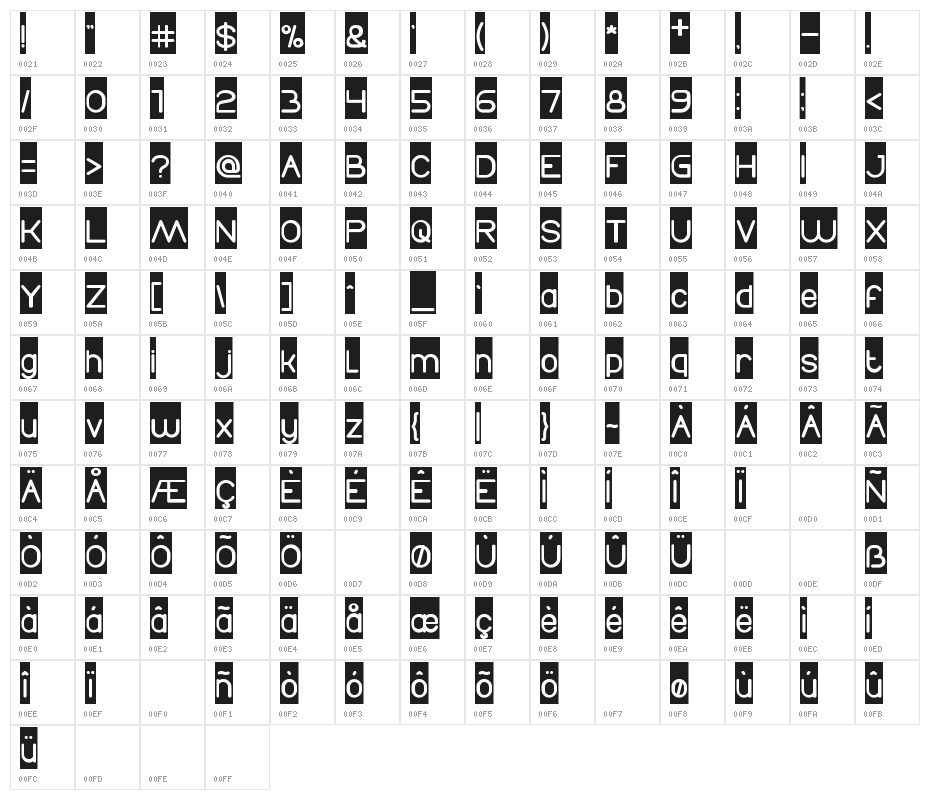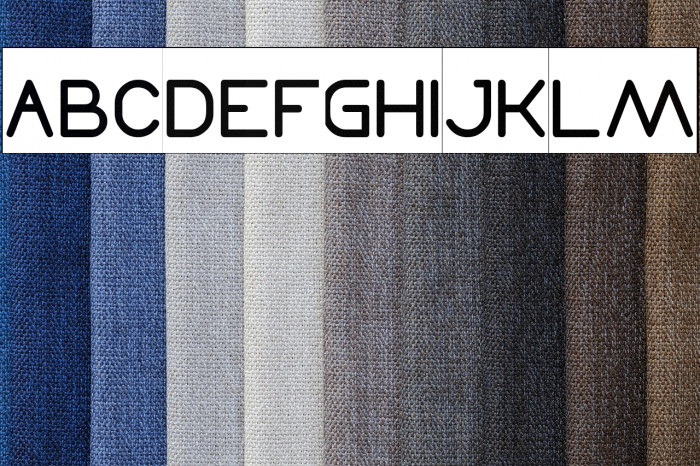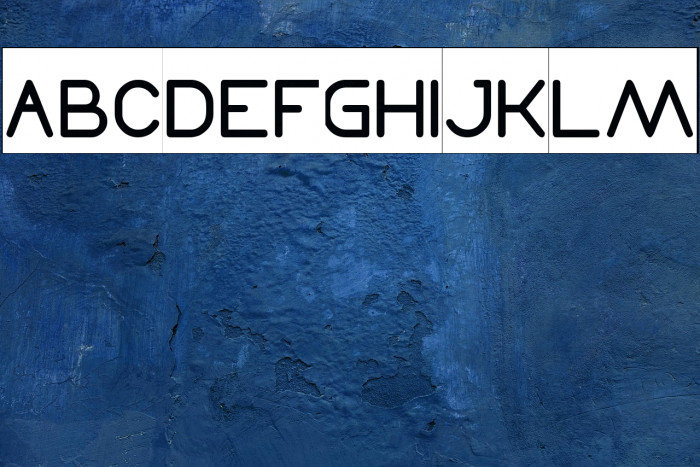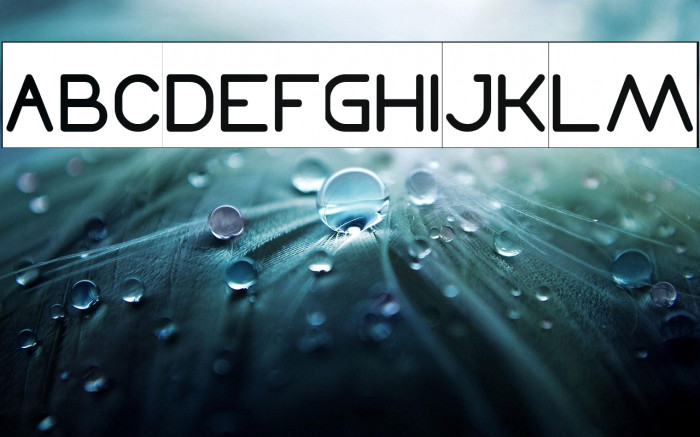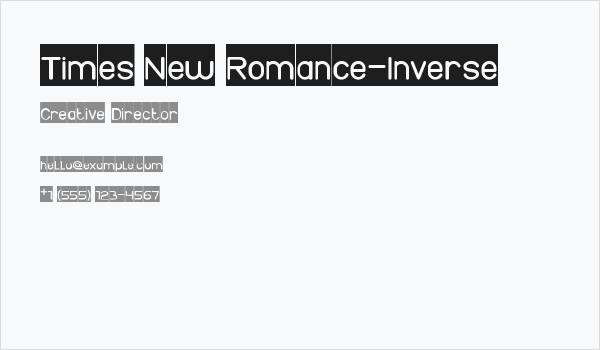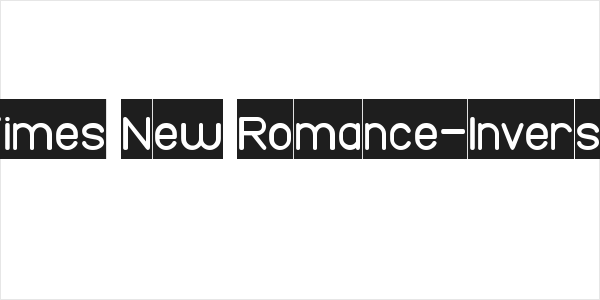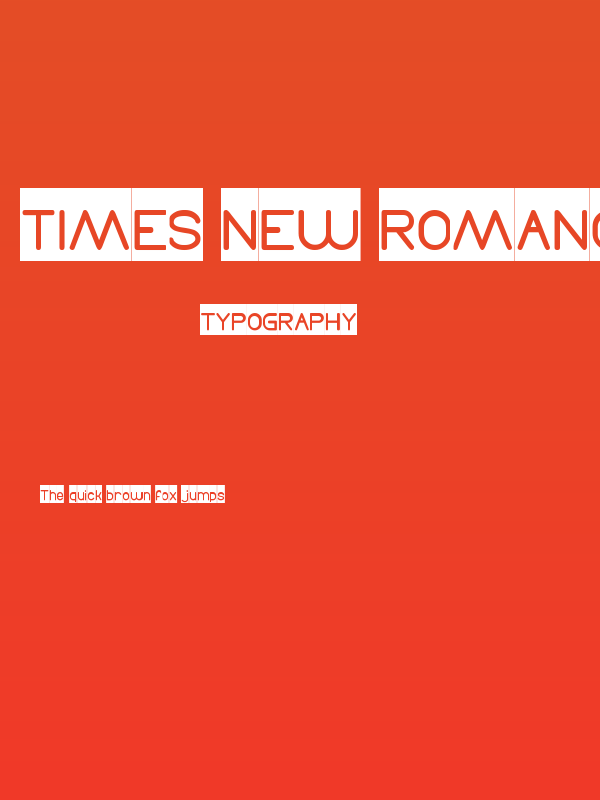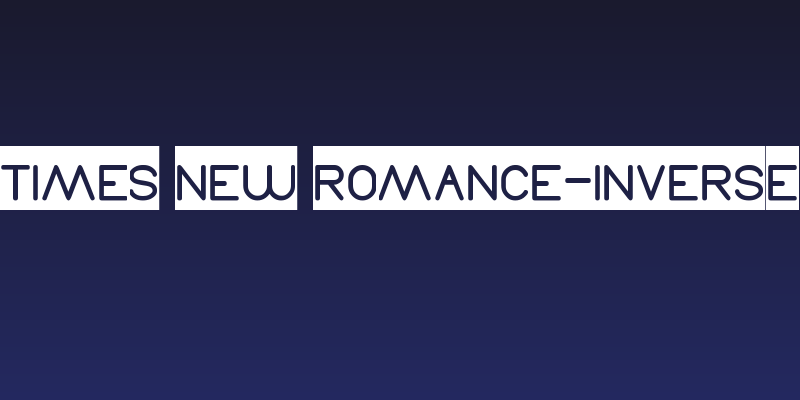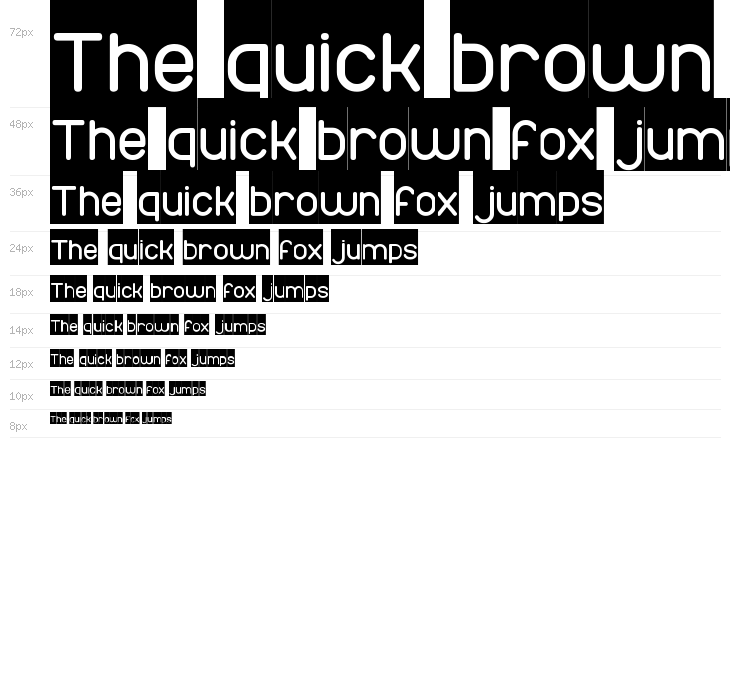
Times New Romance-Inverse Font
Times New Romance-Inverse Description
This font features a modern and clean design with rounded edges, giving it a friendly and approachable appearance. The characters are evenly spaced, contributing to its readability. Its geometric shapes and consistent stroke width make it suitable for various digital applications. The numerals and special characters maintain the same style, ensuring uniformity across different uses. The overall look is sleek and contemporary, making it ideal for projects that require a fresh and modern aesthetic.
| Use Case | Headlines, Body text, Logos |
| Proposed Projects | Ideal for digital interfaces, branding, advertising, and modern web design. |